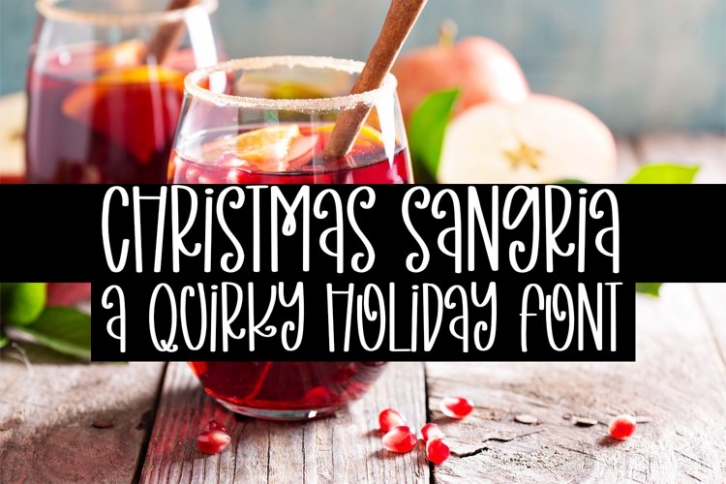
Christmas Sangria is a beautiful font that was designed by plusstore. It's a great choice for designers and creatives who need such a font. It was released on November 27, 2021 and the file size is 8.39 MB. Christmas Sangria may give a more youthful, expressive and casual look to your project. It is a very beautiful, refined, elegant, and high-quality font.